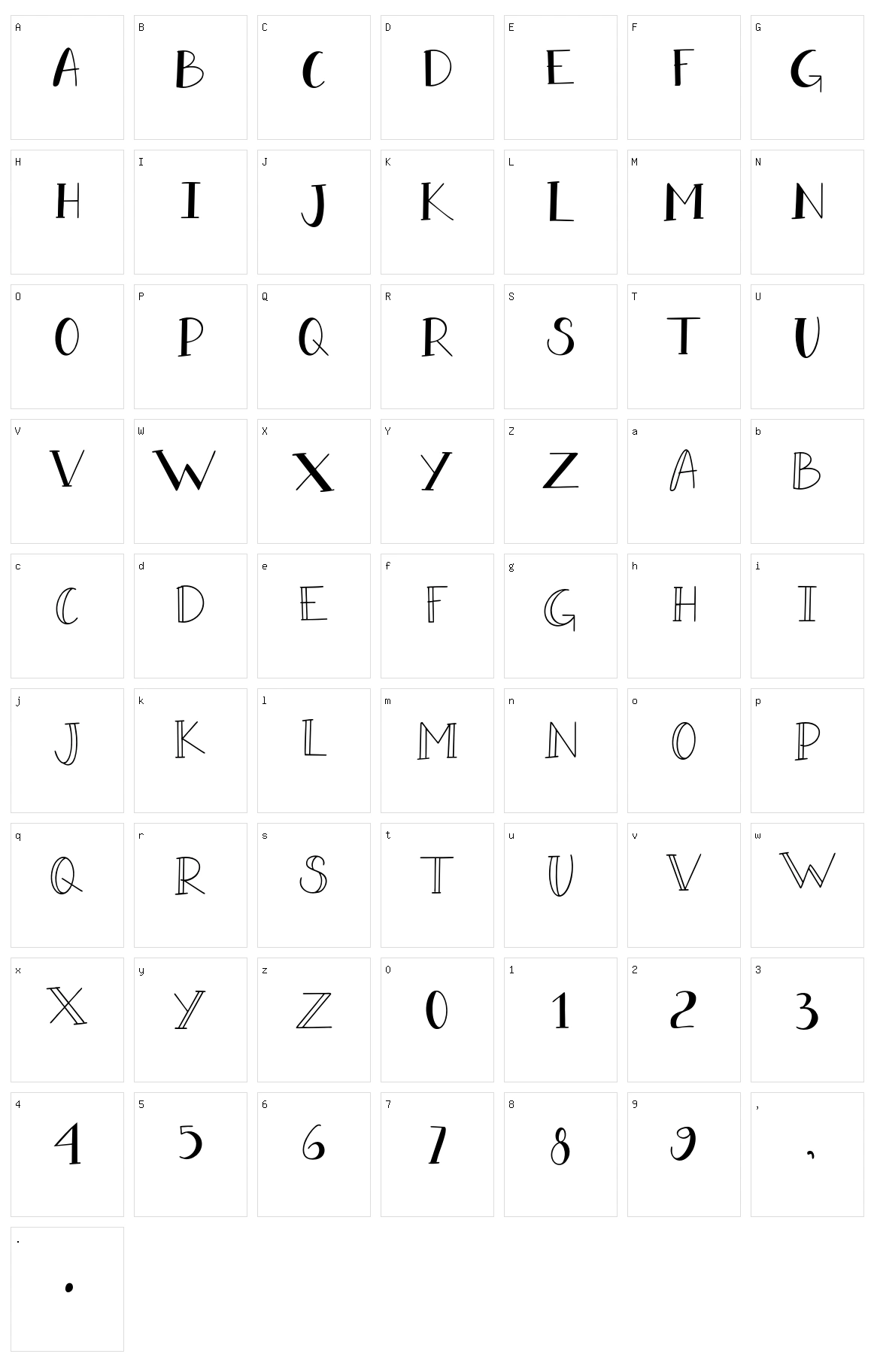
The free font Dora Dore is carefully designed by Mr Letters, showcasing a thoughtful balance of creativity and usability and falls under the Cartoon font style. When you download the ZIP file, it contains only 28.64 KB of font files, making it lightweight and quick to download. Please review the license details below to understand permitted usage and distribution rights. If license information is not available, we recommend using this font for personal projects only or contacting the author directly for commercial usage permissions.